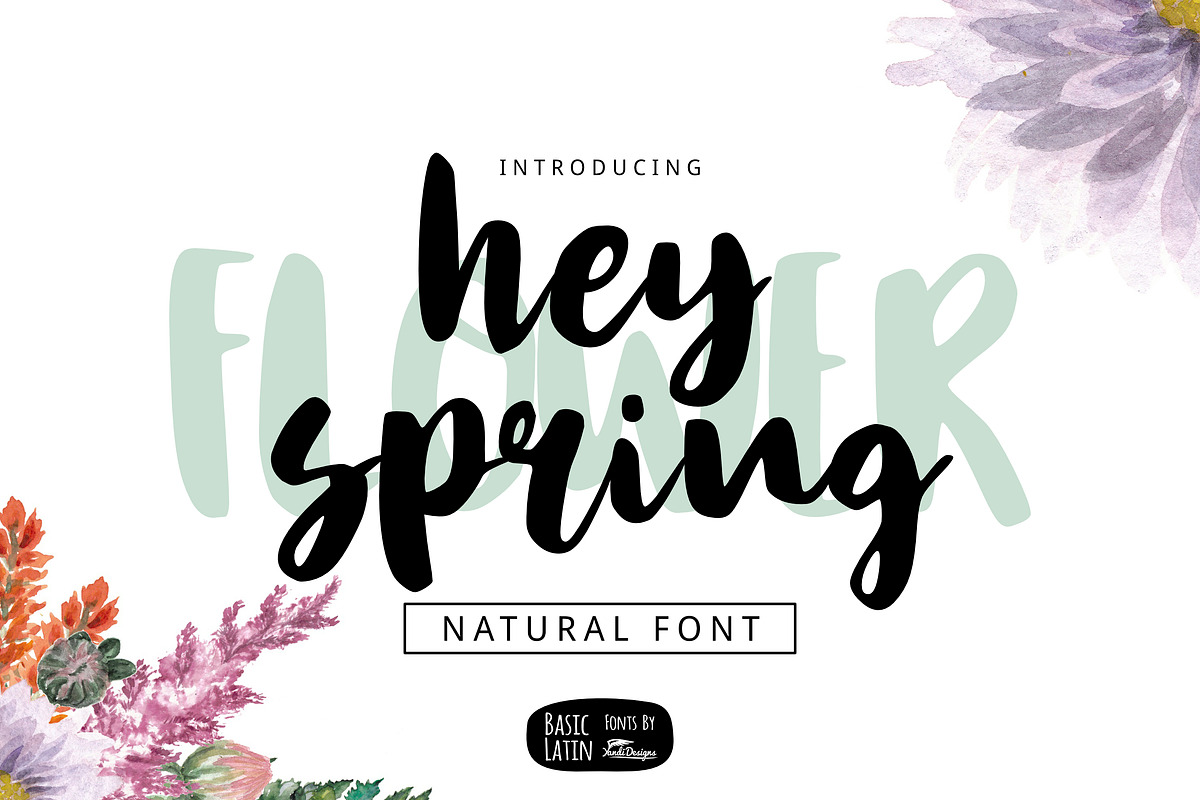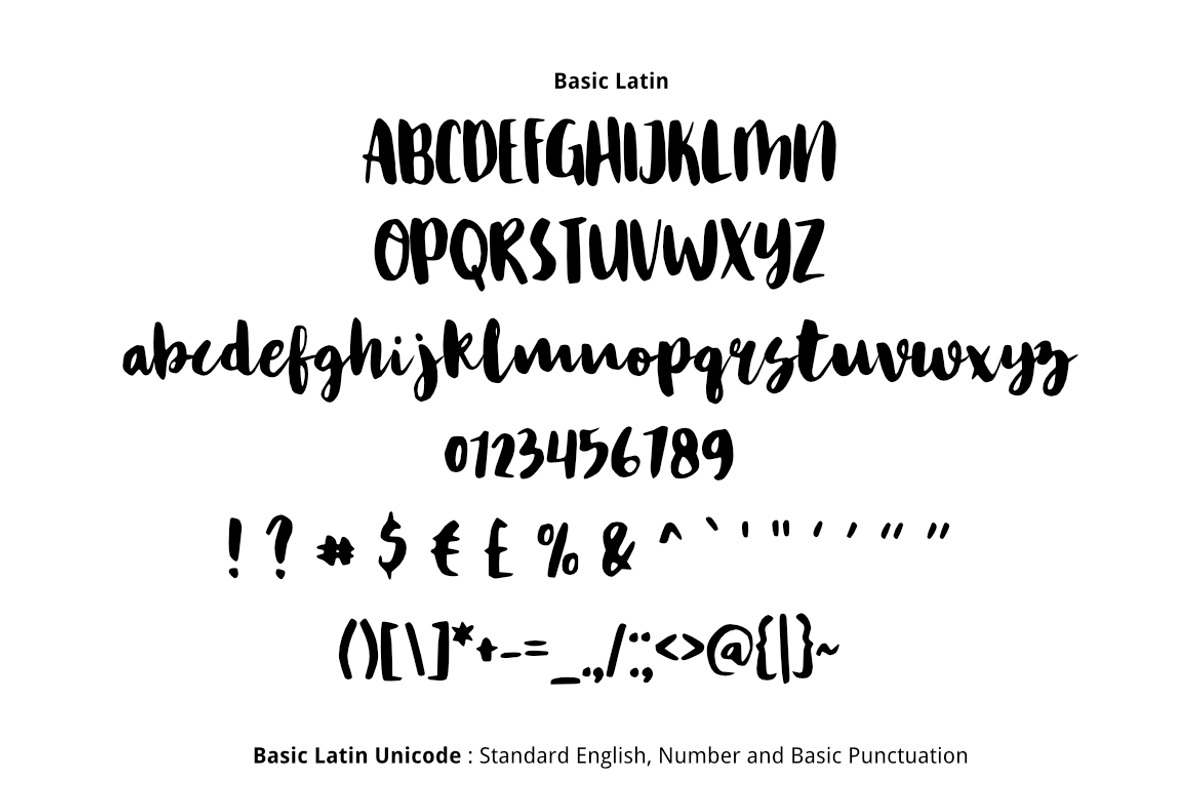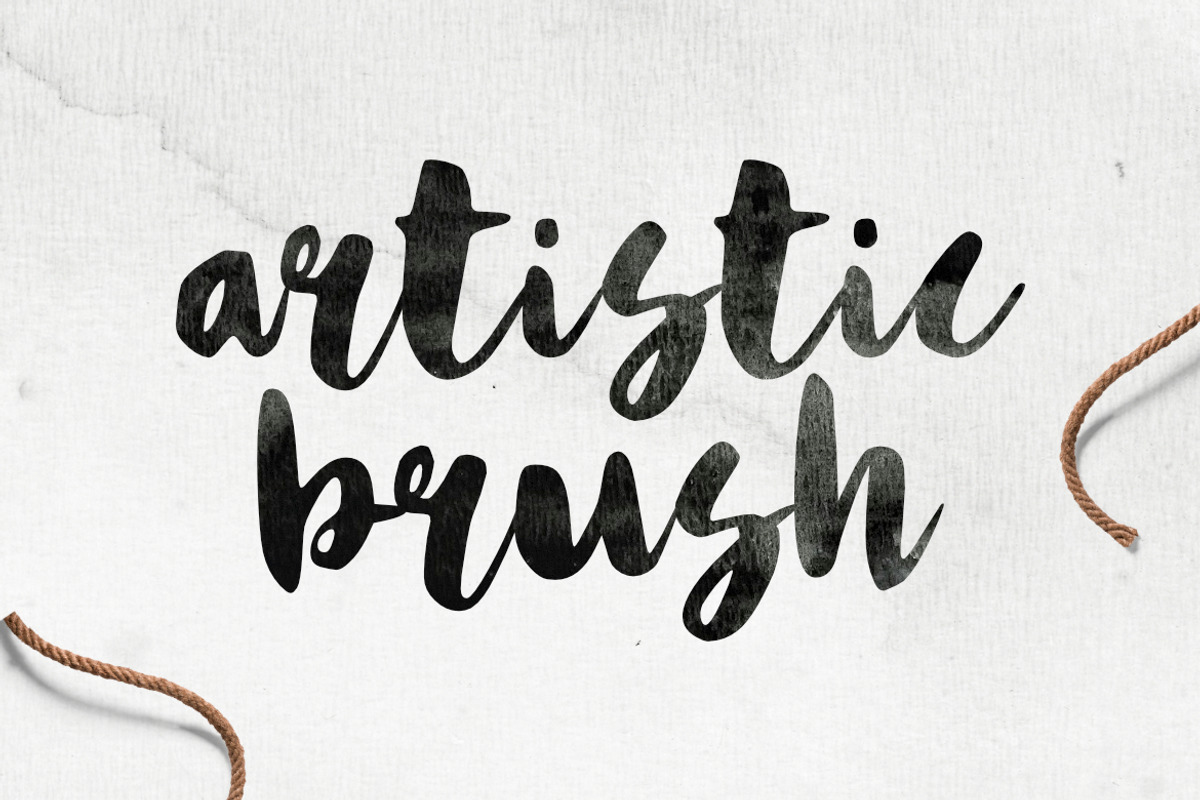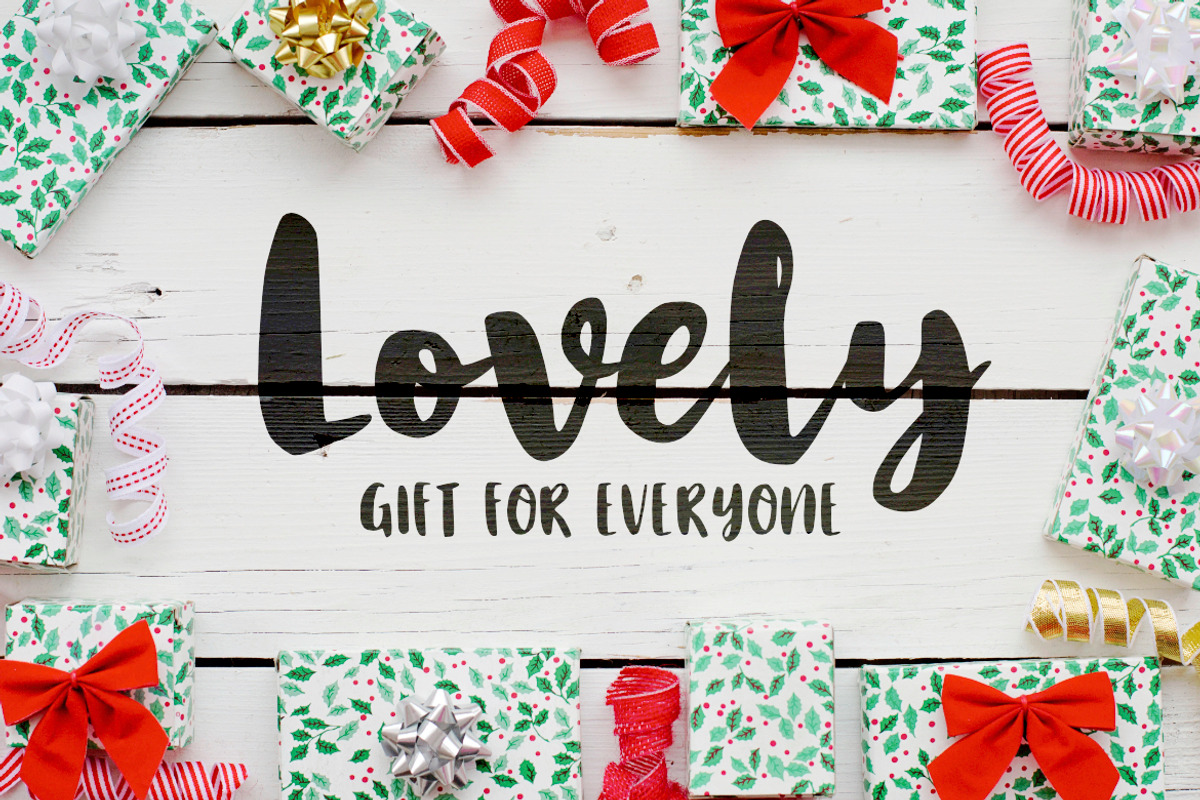
Hey Spring Brush Font
Simple fresh multipurpose brush font , suitable for many project children book, quotes, logo , heading , title etc.
Hey Spring Brush Font by YandiDesigns fits naturally into Branding, posters, packaging, typography.